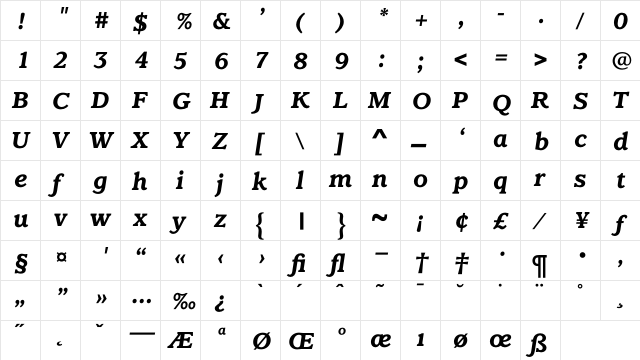
ClaremontBoldItalic Regular Font Preview
ClaremontBoldItalic Regular
Design Context for ClaremontBoldItalic Typeface
ClaremontBoldItalic is a composed and adaptable typeface that performs quietly and consistently across a wide range of design contexts. Its italic angle brings a sense of urgency and motion to the letterforms. Its bold stroke weight gives it real presence on the page.
Pro Tip: Use ClaremontBoldItalic for emphasis, pull quotes, and subheadings where its slanted energy can add rhythm to the layout.